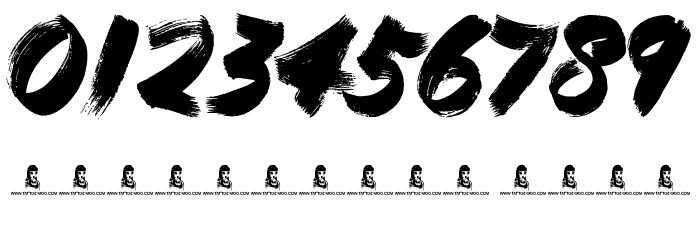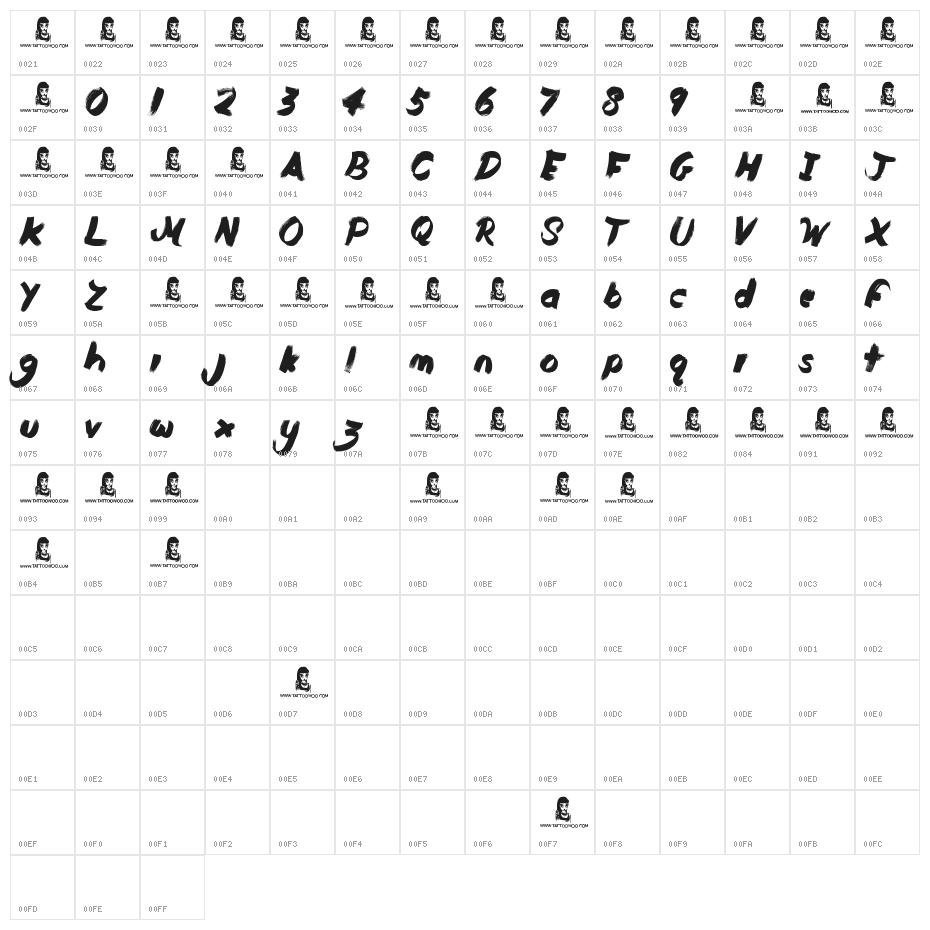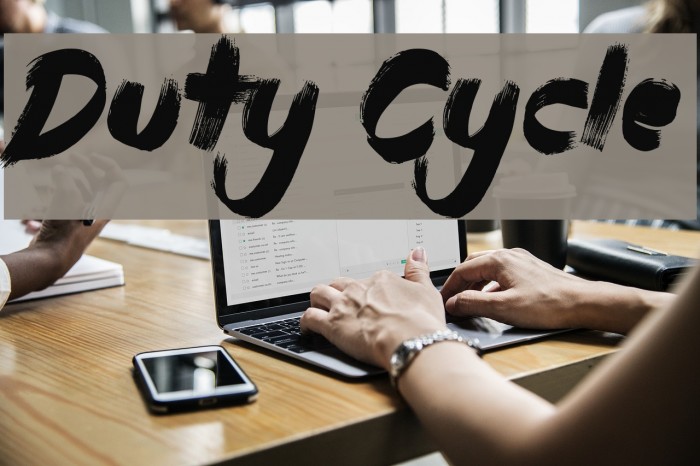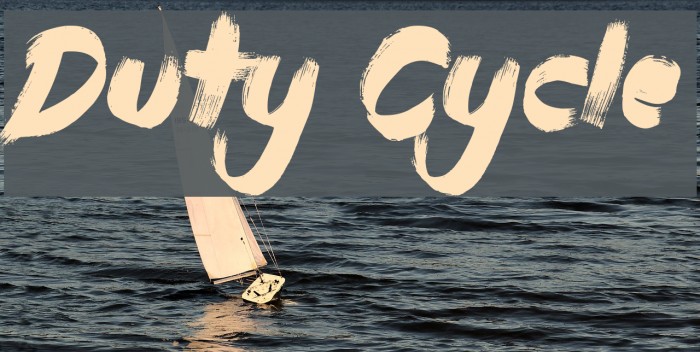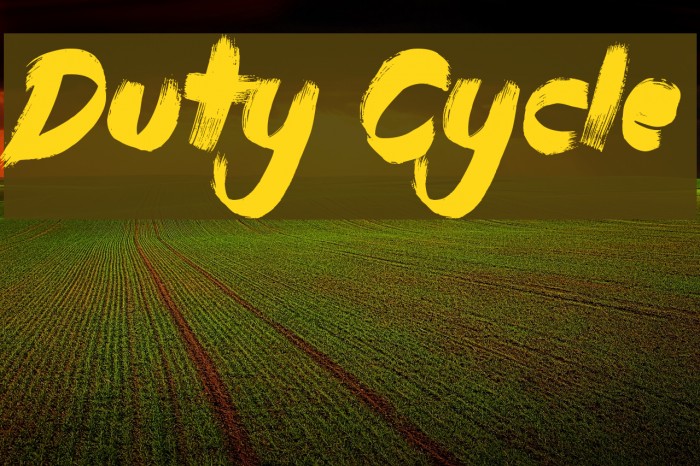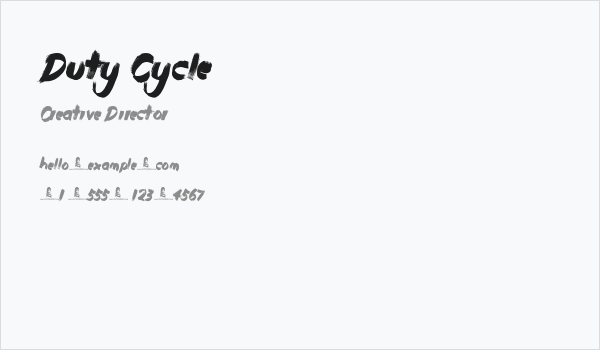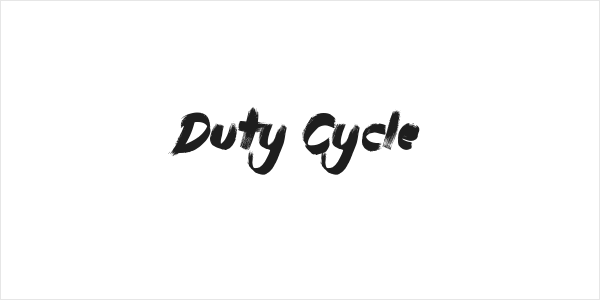
Duty Cycle Font
Duty Cycle Description
This font features a bold, brushstroke style that exudes energy and dynamism. The characters are crafted with a rough, textured appearance, reminiscent of hand-painted lettering. The uppercase and lowercase letters maintain a consistent, fluid motion, while the numbers and special characters follow the same expressive design. The strokes vary in thickness, adding a sense of movement and artistic flair. This font is ideal for projects that require a bold statement, capturing attention with its unique and creative style.